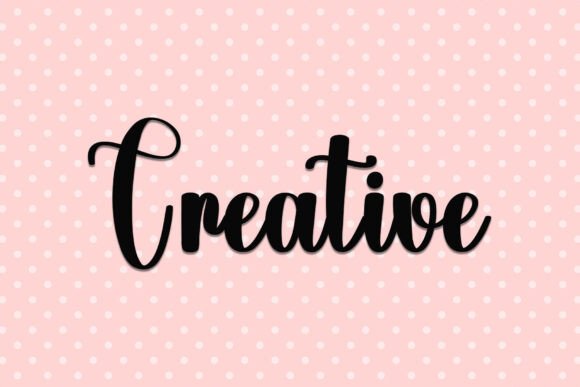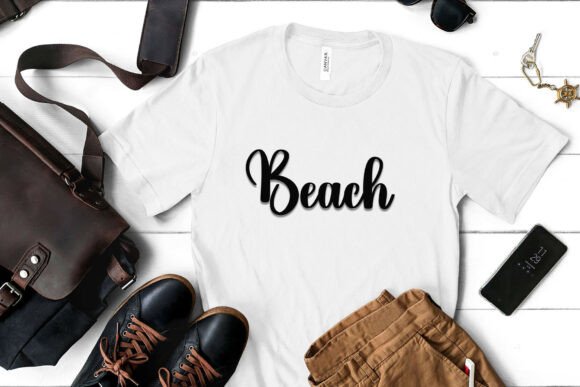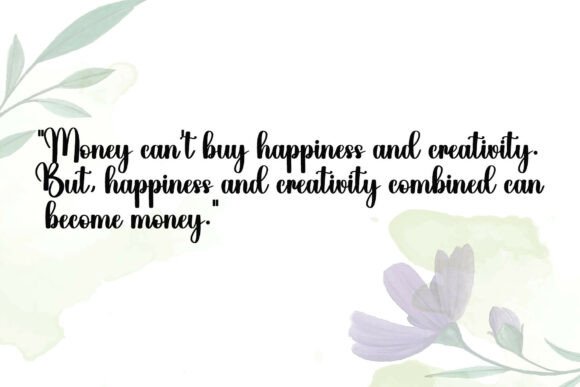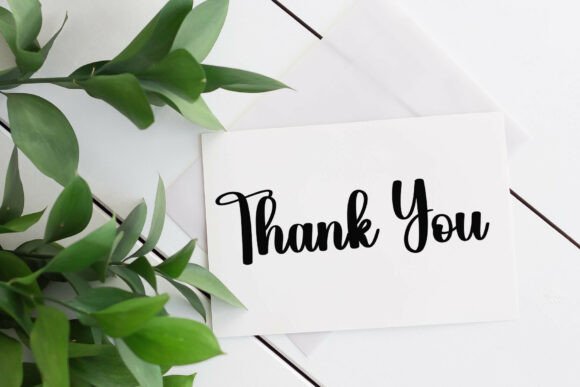
Introducing Agate Font: Elevate Your Designs with Timeless Elegance
Are you a designer or crafter looking for a font that exudes sophistication and style? Look no further than Agate Font, a trendy handwritten font that brings a contemporary atmosphere and impeccable form to your design projects. Inspired by timeless classic calligraphy, Agate Font is the perfect choice for those seeking to add a touch of elegance and class to their work.
The Inspiration Behind Agate Font
Agate Font draws inspiration from the world of classic calligraphy, where the art of beautiful handwriting has been perfected over centuries. The font’s creator aimed to capture the essence of this timeless art form and infuse it with a modern twist, making it suitable for a wide range of design applications. The result is a font that is both nostalgic and fresh, perfect for designers who want to create stunning visual content.
Key Features of Agate Font
So, what makes Agate Font so special? Here are some of its key features:
- Trendy and Handwritten: Agate Font boasts a trendy, handwritten look that adds a personal touch to your designs.
- Contemporary Atmosphere: The font’s modern take on classic calligraphy ensures it fits right in with today’s design trends.
- Impeccable Form: Agate Font’s precise and elegant letterforms make it perfect for creating visually stunning text.
- Elegance and Class: The font’s classic inspiration and refined aesthetic make it an excellent choice for designs that require a touch of sophistication.
Use Cases for Agate Font
Agate Font’s versatility makes it suitable for a wide range of design projects, including:
- Branding and Logos: Create a lasting impression with a logo that exudes elegance and sophistication.
- Wedding and Event Stationery: Add a touch of romance and refinement to your wedding or event designs.
- Packaging and Product Design: Elevate your product packaging with a font that conveys luxury and quality.
- Advertising and Marketing Materials: Create eye-catching ads and marketing materials that stand out from the crowd.
Tips for Using Agate Font Effectively
To get the most out of Agate Font, here are some tips to keep in mind:
- Pair with Neutral Backgrounds: Let Agate Font shine by pairing it with neutral backgrounds that won’t compete for attention.
- Experiment with Colors: Try out different color combinations to find the perfect match for your design.
- Use for Headlines and Titles: Agate Font is perfect for headlines and titles, where its elegance and sophistication can shine.
- Mix with Other Fonts: Don’t be afraid to combine Agate Font with other fonts to create a unique and visually interesting design.
In conclusion, Agate Font is a stunning handwritten font that brings a touch of timeless elegance to your design projects. With its trendy and contemporary atmosphere, impeccable form, and classic inspiration, it’s the perfect choice for designers and crafters seeking to create sophisticated and visually stunning content. Whether you’re working on branding, packaging, or marketing materials, Agate Font is sure to elevate your designs to the next level.